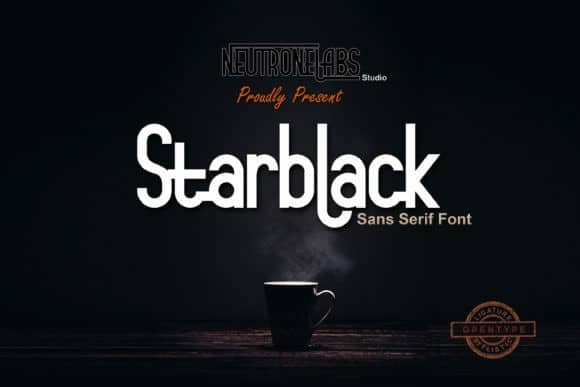
Starblack Sans Serif Font
Starblack Sans Serif Font is a strict geometric type family. In conventional geometric typefaces, basic geometry is often lost in the due to the stroke contrast of a round letter. Starblack is designed and shared by NeutroneLabs. This font is a simple sans serif font, perfect for branding projects, logos, wedding designs, social media posts, advertisements, product packaging, and much more.